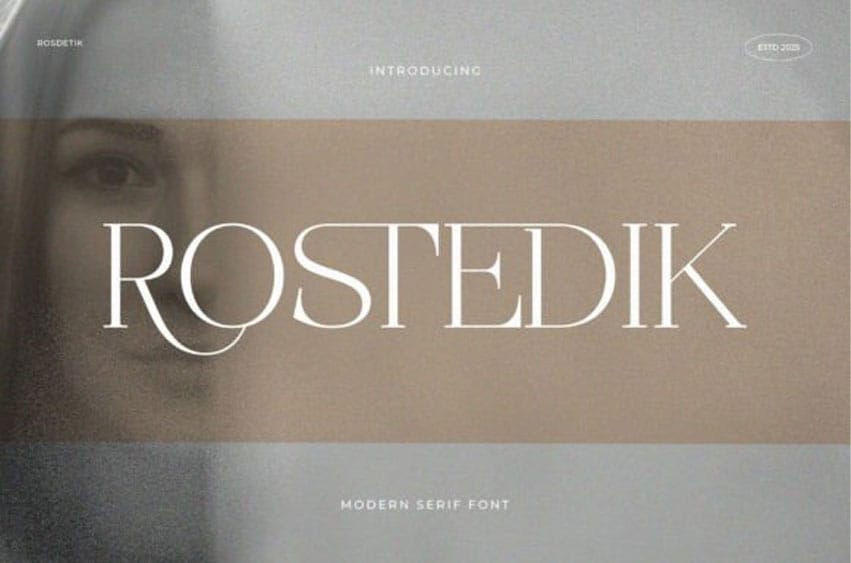
Rostedik Font is a refined modern display serif font that commands attention with its bold presence and sleek sophistication.
Featuring sharp serifs, high contrast strokes, and stylish curves, Rostedik blends contemporary flair with timeless elegance. It’s perfect for editorial designs, luxury branding, fashion campaigns, logo work, and bold headlines that demand distinction and style.